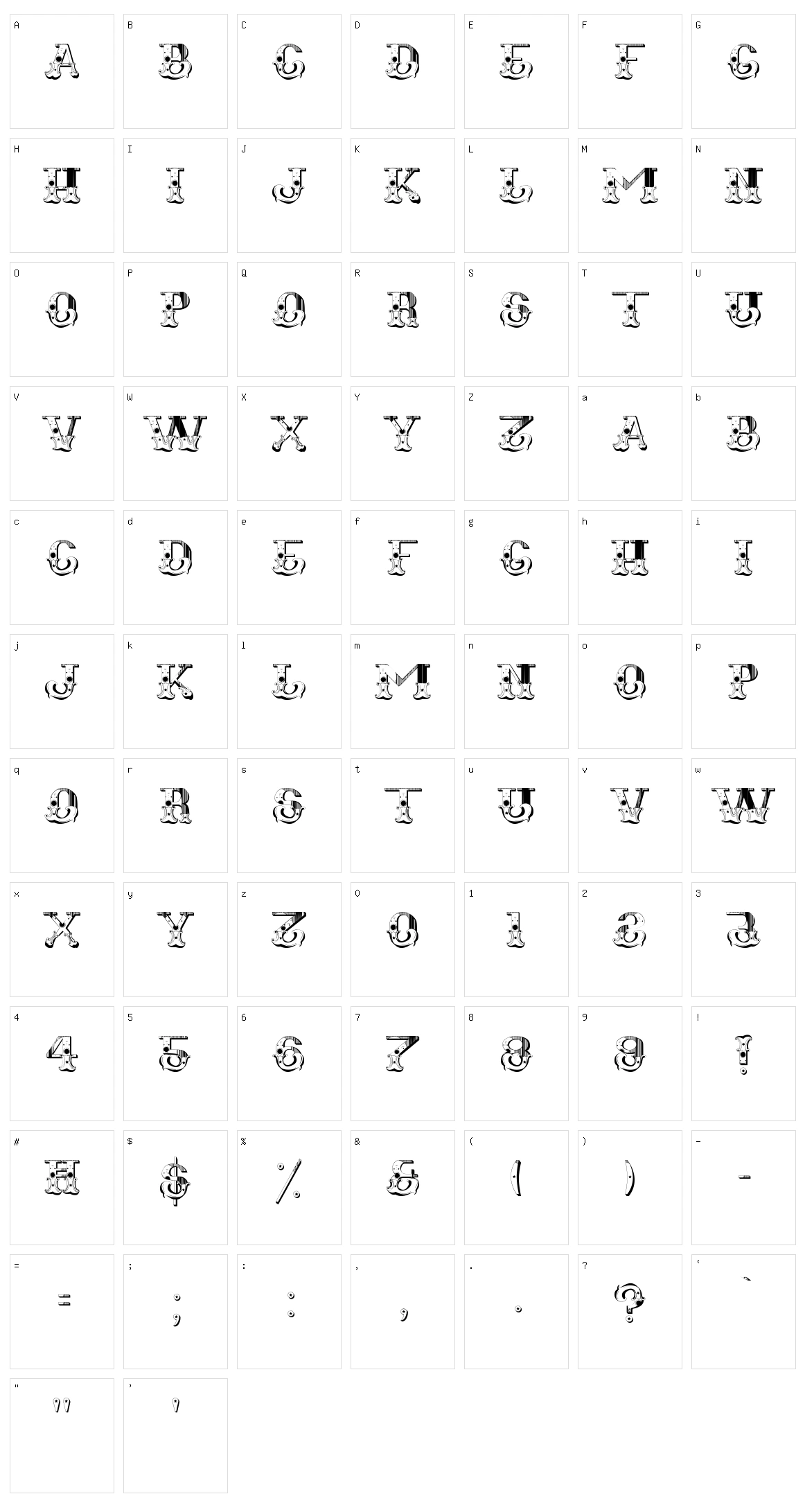
The free font Fugitiva is carefully designed by Type Sailor, showcasing a thoughtful balance of creativity and usability and falls under the Western font style. When you download the ZIP file, it contains only 872.14 KB of font files, making it lightweight and quick to download. Please review the license details below to understand permitted usage and distribution rights. If license information is not available, we recommend using this font for personal projects only or contacting the author directly for commercial usage permissions.
This font was designed with patience and love, using the handmade lettering style.